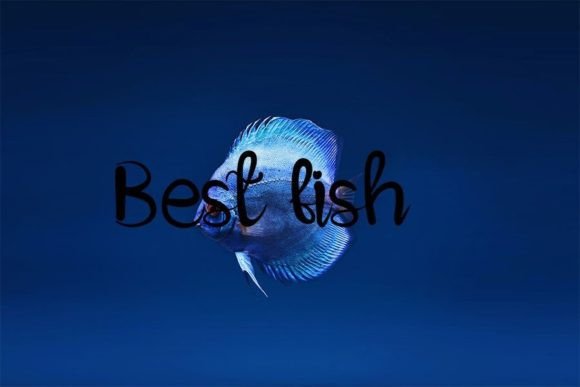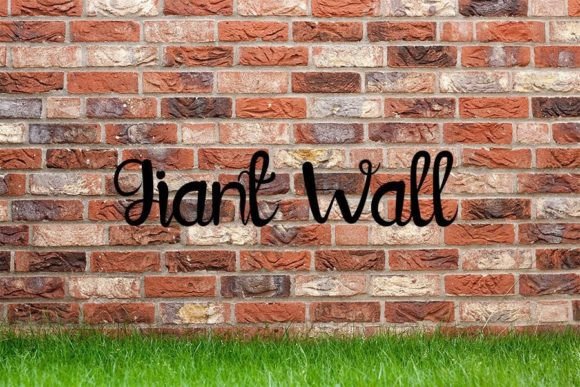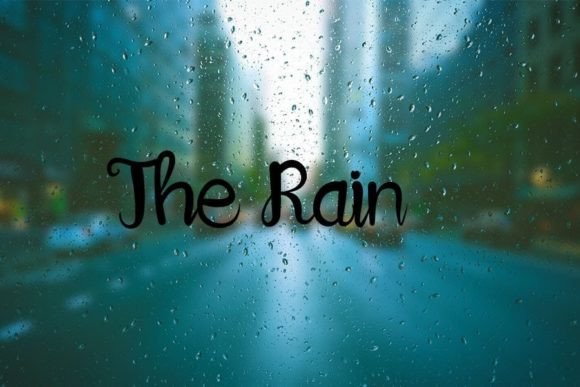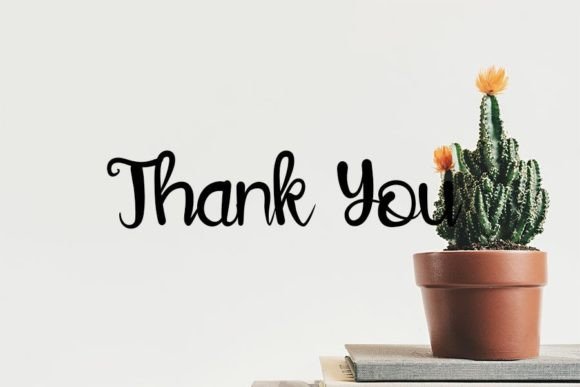
About Elephant Font
Elephant, a neat and beautiful handwritten font, is characterized by its elegant touch, making it the perfect choice for your favorite projects. This font is designed to captivate, featuring an incredibly distinct and timeless style that invites you to fall in love with its visual allure. Explore the possibilities and use Elephant to craft spectacular designs that leave a lasting impression.
The neatness of Elephant sets it apart, providing a clean and refined appearance. Each letter is carefully crafted, showcasing a level of precision that enhances the overall aesthetic. This attention to detail ensures that Elephant maintains its beauty even in the smallest of details, making it versatile for various design applications.
The handwritten quality of Elephant adds a touch of authenticity to your projects. It carries a sense of individuality and human touch, making it suitable for personal or professional designs. Whether you’re working on invitations, branding, packaging, or any other creative endeavor, Elephant infuses a sense of elegance that elevates the visual experience.
The distinct style of Elephant is its hallmark. Its uniqueness makes it stand out among other fonts, allowing your designs to be memorable and recognizable. This distinctiveness is particularly valuable in branding, where Elephant can become an integral part of creating a strong and distinctive visual identity.
Elephant’s timeless style ensures its relevance across different design trends and eras. It doesn’t conform to fleeting fads but rather establishes itself as a classic choice. This timelessness adds value to your projects, providing a font that can withstand the test of time and remain visually appealing for years to come.
Incorporate Elephant into your creative toolkit and witness the transformation of your designs. Let its neat and beautiful handwritten charm enhance your projects, from elegant invitations to eye-catching branding. Elephant invites you to explore the world of design with a font that embodies sophistication and timeless allure.